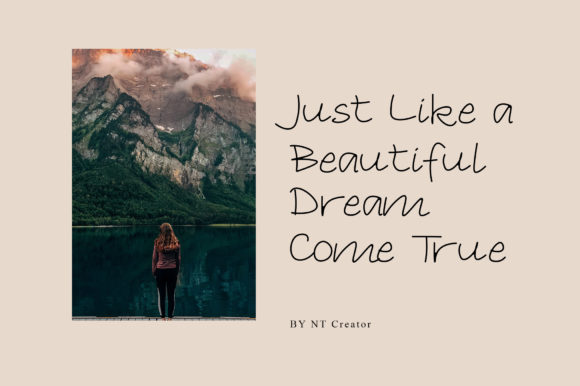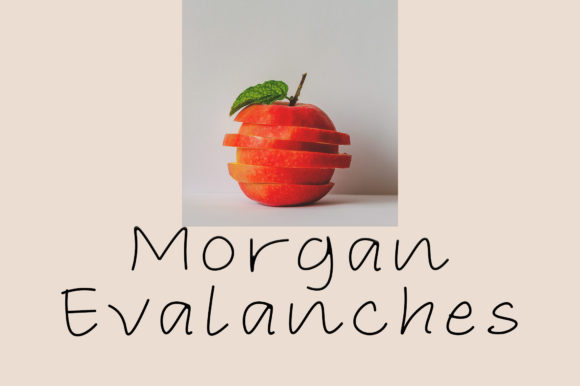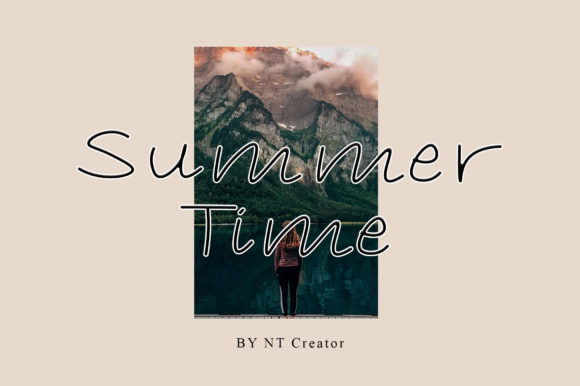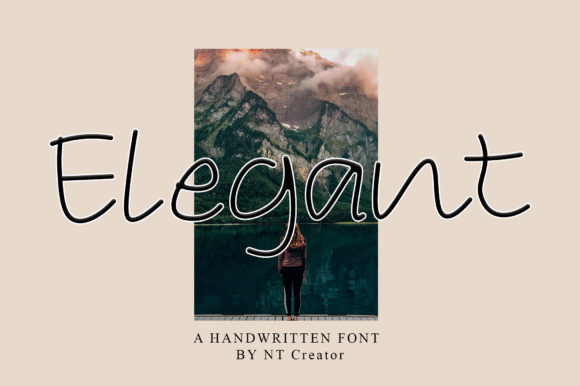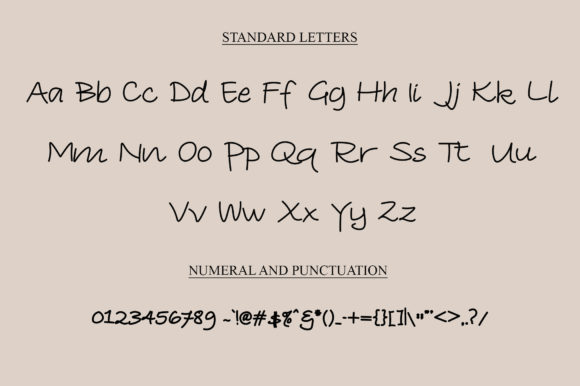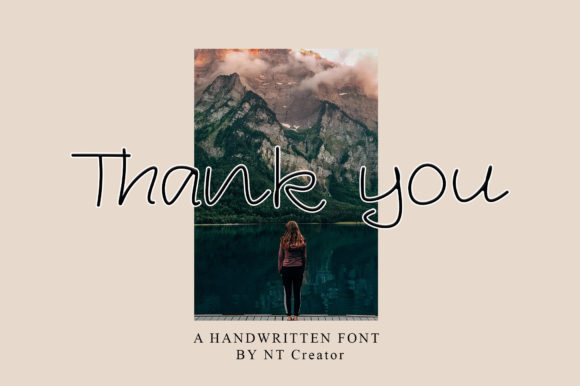
The Gagego Font: A Timeless Handwritten Treasure
Ah, the elusive perfect font. You know, that one design project where everything comes together, and the font is the crowning glory. For me, it was a logo design project for a small bakery. I had the concept, the colors, and the layout, but the font just wasn’t cooperating. That was until I stumbled upon the Gagego font. It was love at first sight! 💕
Gagego is a lovely and timeless handwritten font that has become a staple in my design toolkit. It’s the perfect choice for creating eye-catching logos, branding, and quotes. Every letter has a unique and beautiful touch, which will make your design come alive!
- ✨ Unique and beautiful letterforms that add a personal touch to any design
- 💫 Works well with a variety of design styles, from modern to vintage
- 🎨 Supports OpenType features, glyphs, and stylistic alternates
While Gagego is an amazing font, it’s not perfect. Here are a few things to keep in mind:
- 🤔 Some letters may not work well with certain languages or special characters
- ⚠️ May not be suitable for very formal or corporate designs
The Backstory of Gagego
Gagego was designed by a talented font designer who wanted to create a font that would capture the essence of handwritten writing. The designer spent countless hours perfecting the letterforms, paying attention to every detail to ensure that the font was both beautiful and legible. The result is a font that’s both timeless and modern, perfect for a wide range of design projects.
| Author | Gagegostyle |
Q: Is Gagego suitable for body text?
A: While Gagego is a beautiful font, it’s best suited for headlines and titles. For body text, you may want to choose a font that’s more legible and easier to read.